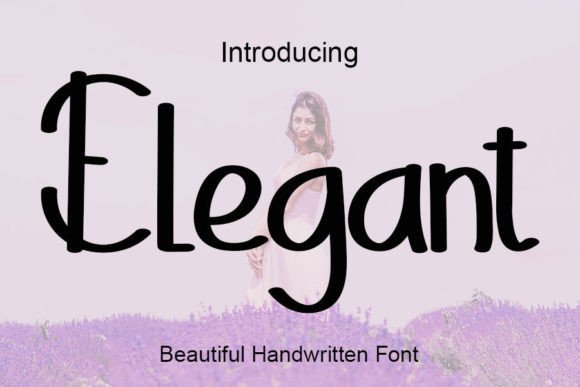
Discover the Timeless Charm of Elegant Font
Have you ever found yourself lost in a sea of inspiration, with a spark of creativity that refuses to be tamed? It’s moments like these that remind us why we became designers in the first place – to bring our unique vision to life. For many of us, it all starts with the perfect font. Enter the Elegant Font, a beautiful handwritten script that adds an elegant touch to any project.
This stunning font is not just a pretty face; it’s a powerful tool that can elevate your designs to new heights. Whether you’re crafting a wedding invitation, a logo, or a social media graphic, Elegant Font is the perfect choice to make your creations stand out. Its timeless style and versatility make it a valuable asset for designers who want to add a touch of sophistication to their work.
Elegant Font Key Features
- Font Family: Elegant Font comes in three font families: Elegant Regular, Elegant Italic, and Elegant Bold.
- Character Set: Supports a wide range of characters, including Latin, Cyrillic, and Greek alphabets, as well as various punctuation marks and symbols.
- Unique Characteristics: Elegant Font features elegant, cursive lines and subtle flourishes, giving it a sophisticated and refined look.
Elegant Font Review
I’ve had the chance to work with the Elegant Font, and I must say, it’s a great addition to any design project. ✨ One thing that stands out is its clean and sophisticated look, making it perfect for corporate or luxury brand designs. It’s also highly legible, which is a must for any font.
- Perfect for formal or luxury brand designs
- Highly legible, making it easy to read
- Comes in a range of weights and styles
- Works well in both print and digital designs
However, I do have some reservations. ⚠️ The font can feel a bit overused, which may make it difficult to stand out in a crowded design landscape. Additionally, some of the weights and styles can feel a bit too similar, which may make it hard to create visual hierarchy.
Overall, I think the Elegant Font is a solid choice for designers looking for a sophisticated and legible font. While it may not be the most unique or exciting option, it’s a reliable choice that’s sure to please.
For best results, use Elegant Font in conjunction with a clean and minimalist design aesthetic.
For best results, use Elegant Font in conjunction with a high-quality image or illustration.
For best results, use Elegant Font in conjunction with a clear and concise layout.